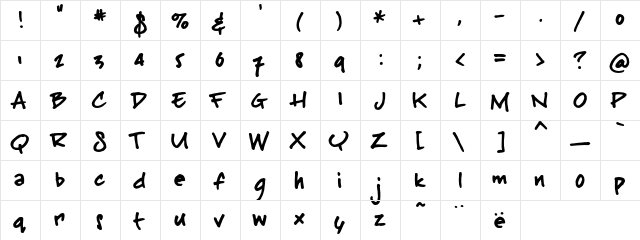
BuffaloStance Regular Font Preview
BuffaloStance Regular
BuffaloStance Regular Font Details
| Foundry | JOEBOB graphics |
Design Context for BuffaloStance Typeface
BuffaloStance is a composed and adaptable typeface that performs quietly and consistently across a wide range of design contexts.